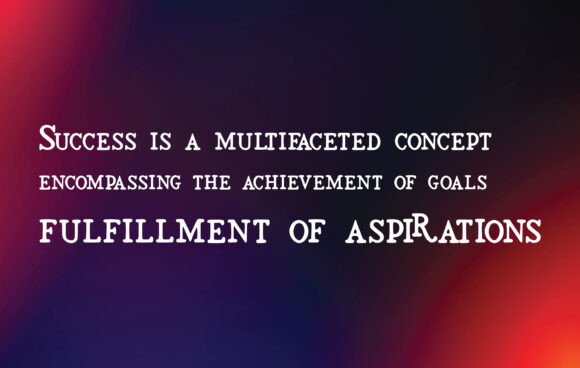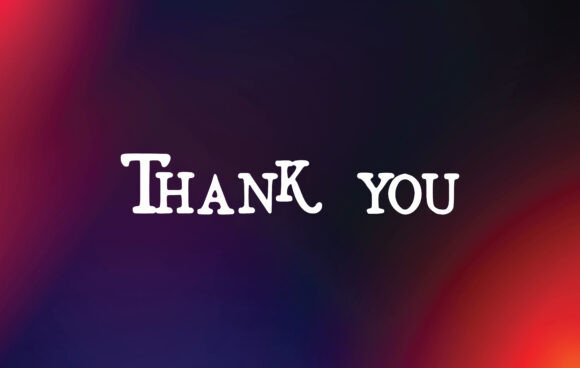
Discover the Elegance of Clarke Font: Elevate Your Designs with Sophistication
In the world of typography, fonts play a pivotal role in bringing creative ideas to life. Among the myriad of fonts available, Clarke Font stands out for its unique blend of elegance and versatility. This lovely and beautiful font has the potential to take your creative projects to the highest level, making it an indispensable tool for designers and crafters alike. Whether you’re aiming to create eye-catching logos, compelling branding, or inspiring quotes, Clarke Font is undoubtedly the best choice.
The Characteristics of Clarke Font
Clarke Font boasts a distinct style that sets it apart from other fonts. Its design is characterized by clean lines, elegant curves, and a sophisticated feel that adds a touch of luxury to any project. The font’s versatility is one of its most appealing features, allowing it to be used across a wide range of applications, from digital media to print materials.
Why Choose Clarke Font?
There are several reasons why Clarke Font should be your go-to choice for your design projects:
- Elegance and Sophistication: Clarke Font exudes an air of elegance and sophistication, making it perfect for high-end branding, luxury logos, and premium products.
- Versatility: Its versatile nature allows it to be used in various contexts, from formal and professional settings to more creative and playful applications.
- Readability: Despite its elegant design, Clarke Font maintains excellent readability, ensuring that your message is conveyed clearly and effectively.
- Uniqueness: Clarke Font’s unique style ensures that your designs stand out from the crowd, capturing the attention of your audience.
Applications of Clarke Font
The applications of Clarke Font are vast and varied. Here are some of the most popular uses:
- Logo Design: Create memorable and impactful logos that represent your brand’s identity and values.
- Branding: Enhance your brand’s image with Clarke Font’s elegant and sophisticated feel, perfect for packaging, advertising, and marketing materials.
- Quotes and Typography: Add a touch of elegance to your quotes, posters, and typographic designs, making them stand out on social media and other platforms.
- Web Design: Use Clarke Font to create visually appealing and user-friendly websites that reflect your brand’s personality.
Tips for Using Clarke Font Effectively
To maximize the impact of Clarke Font, consider the following tips:
- Pair with Complementary Fonts: Combine Clarke Font with other fonts that complement its style to create visual interest and hierarchy in your designs.
- Experiment with Colors: While Clarke Font looks stunning in black and white, don’t be afraid to experiment with colors that match your brand’s palette or the mood of your design.
- Pay Attention to Spacing: Ensure adequate spacing between letters and lines to maintain readability and aesthetic appeal.
Clarke Font is more than just a font; it’s a tool that can elevate your creative projects to new heights. Its elegance, versatility, and unique style make it an excellent choice for designers and crafters looking to add a touch of sophistication to their work. Whether you’re creating logos, branding materials, or typographic designs, Clarke Font is sure to make a lasting impression. Discover the beauty of Clarke Font and unlock the full potential of your creative ideas.